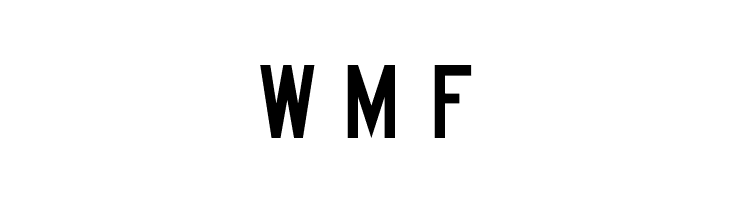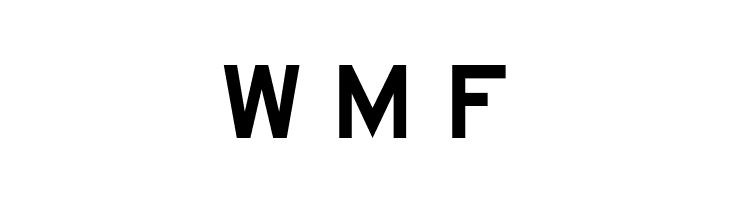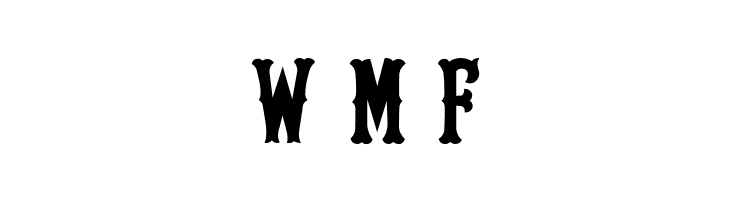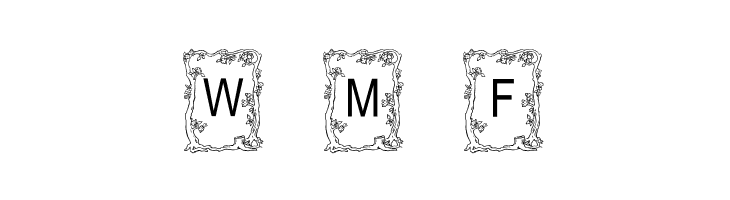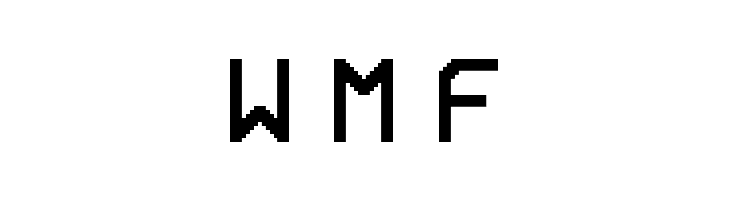
VanGogh Font
Artistic font with bold, enclosed characters.
Cargo Two SF Font
A bold, modern font with an industrial aesthetic and strong presence.
SF New Republic Bold Font
Font by ShyFonts
A bold, modern sans-serif font with clean, geometric lines.
Astro Creep 2 Font
A bold, playful font with a thick outline and cartoonish style.
SF Old Republic Font
Font by ShyFonts
D3 Euronism Font
Font by www.DigitalDreamDesign.net
A futuristic, geometric font with clean lines and rounded edges.
DS Crystal Font
A geometric, angular font with a crystalline, three-dimensional appearance.
Pilsen Plakat Font
Font by Dieter Steffmann
A bold, impactful font with thick, uniform strokes and a modern yet vintage appeal.
NewUnicodeFont Jakub Font
A bold, futuristic font with slanted, rounded characters.
Sui Generis Font
A bold, modern font with geometric shapes and clean lines.
Cardinal Regular Font
Font by Dieter Steffmann
An ornate and decorative font with intricate flourishes and sharp serifs.
Excellentia in excelsis Font
An elegant, sophisticated script font with intricate swirls and flourishes.
Famous Logos Font
A novelty font composed entirely of famous logos and brand icons.
Astron Boy Wonder Font
A futuristic, angular font with bold outlines and geometric shapes.
Junegull Font
A bold, rounded font with a playful and friendly appearance.
Benjamin Franklin Font
Font by Dieter Steffmann
A classic serif font with bold, well-defined characters and a vintage aesthetic.
FontleroyBrown Font
Font by Nick Curtis - www.nicksfonts.com
An elegant, decorative font with ornate uppercase and stylish lowercase letters.